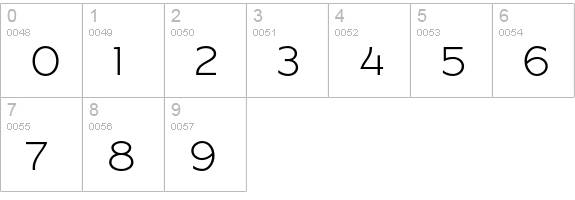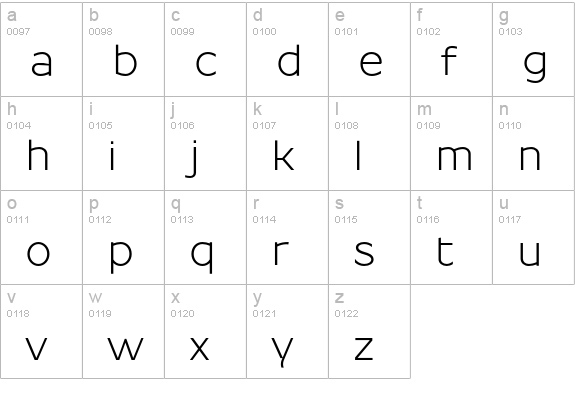
Resamitz Font Details
Resamitz font is a stunning display typeface that effortlessly combines elegance with a touch of playfulness. Its unique letterforms are meticulously crafted to captivate and enchant, making it the perfect choice for headlines, posters, logos, and branding projects. This font exudes a sense of modern sophistication, with its clean lines and graceful curves. Each character is meticulously designed to ensure legibility and readability, even at smaller sizes. The attention to detail in Resamitz font is truly remarkable, making it a standout choice for any design project. What sets Resamitz font apart is its versatility. It can seamlessly transition from classic to contemporary designs, adapting effortlessly to suit various aesthetics and themes. Whether you're looking to create a vintage-inspired poster or a sleek, modern logo, Resamitz font has got you covered. And the best part? Resamitz font is absolutely free! That's right, this incredible typeface is available for download at FontsMarket.com, where you can easily access it and start using it in your designs right away. It's a fantastic opportunity to add a touch of elegance and sophistication to your projects without breaking the bank. So why wait? Download Resamitz font today and let your creativity soar. With its stunning aesthetics and the ease of use, this typeface is sure to become your go-to choice for all your design needs. Don't miss out on this incredible opportunity to enhance your designs with Resamitz font's timeless beauty.